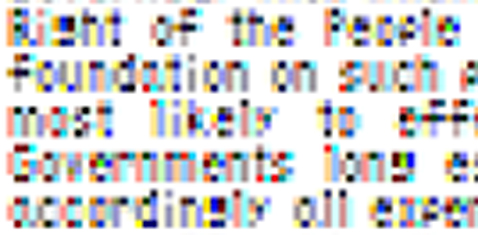
The World’s Smallest Legible Font for an LCD Screen
A computer scientist at NYU fuses type design and programming skills to create a font that stays readable even at 5 pixels high.
Ken Perlin, computer scientist and director of NYU's Games for Learning Institute, had a problem: Microsoft Word's default fonts turned into illegible mush at tiny sizes. So he took it upon himself to design a typeface of his own that would remain easily readable on LCD screens even at the microscopic size of just 6 pixels. (Technically speaking, he allotted 5 pixels for the letterforms and 1 pixel of "leading" in between lines.)
The magnified image above shows off the successful result: that's the first 500 words of the Declaration of Independence, squashed into a 320 x 240 rectangle. Here's how it looks actual-size:
Sure, it's not exactly pleasant to read, but it's easily doable -- even when the text is a foot or more away from your face. But Perlin's handiwork, informally dubbed Tiny Font, even holds its legibility when blown up. For comparison, here's how Arial looks at an identically minuscule point size:
And here's Tiny Font again. See how you can actually still, like, read it?
How'd Perlin do it? Like any typographer, he painstakingly designed each Tiny Font letter individually. But he also had algorithmic help: He wrote a program in Java that took normal-sized ASCII characters as input and bitmapped them down to a fixed height of 5 pixels -- while mathematically interpolating the variable width of each character to exploit the RGB scan lines on an LCD monitor.
In English, that means that Perlin's algorithm could squash the width of each letter into the smallest possible space allowable on a monitor's pixel grid. The "pixels" on an LCD monitor are actually small strips of horizontal dots that repeat: red, green, blue, red, green blue. They're tiny enough that, when mixed together, we can visually perceive them as any color in the rainbow. Perlin took advantage of that fact in his Java program to make each letterform as visually distinct as possible within those RGB-RGB stripes. (That's why the letters look strangely multicolored when blown up, but mostly black-and-white at normal resolution.)
It was still a matter of trial and error and personal taste -- Perlin twiddled and tweaked the variables in his program to make each letter's RGB-visibility as sharp as possible to his own eye. But because his algorithm did most of the heavy lifting, he says each letter "took less than a minute" to get right.
Of course, the big question remains: Why? "I just wanted to see if I could do it -- I took it as a personal challenge," Perlin tells Co.Design. "I was also intrigued by questions of improving text legibility on Third World cell phone screens." After all, the lion's share of the planet's cell phones are not equipped with Apple Retina Display technology: they're stuck with smallish, 320 x 240 QVGA-resolution screens. "If this is the resolution that billions of people will be looking at for the next few years," says Perlin, "I wanted to know: how good can you make it?"
Thanks to surging interest online, Perlin says he hopes to create a downloadable version of his work -- not just Tiny Font itself, but his shrink-ray Java source code as well. Theoretically, that means Perlin's code could be applied to any typeface that a designer wanted to make micro-readable at a glance. With luck, low-rez screens the world over may soon have a typographic champ in their corner.